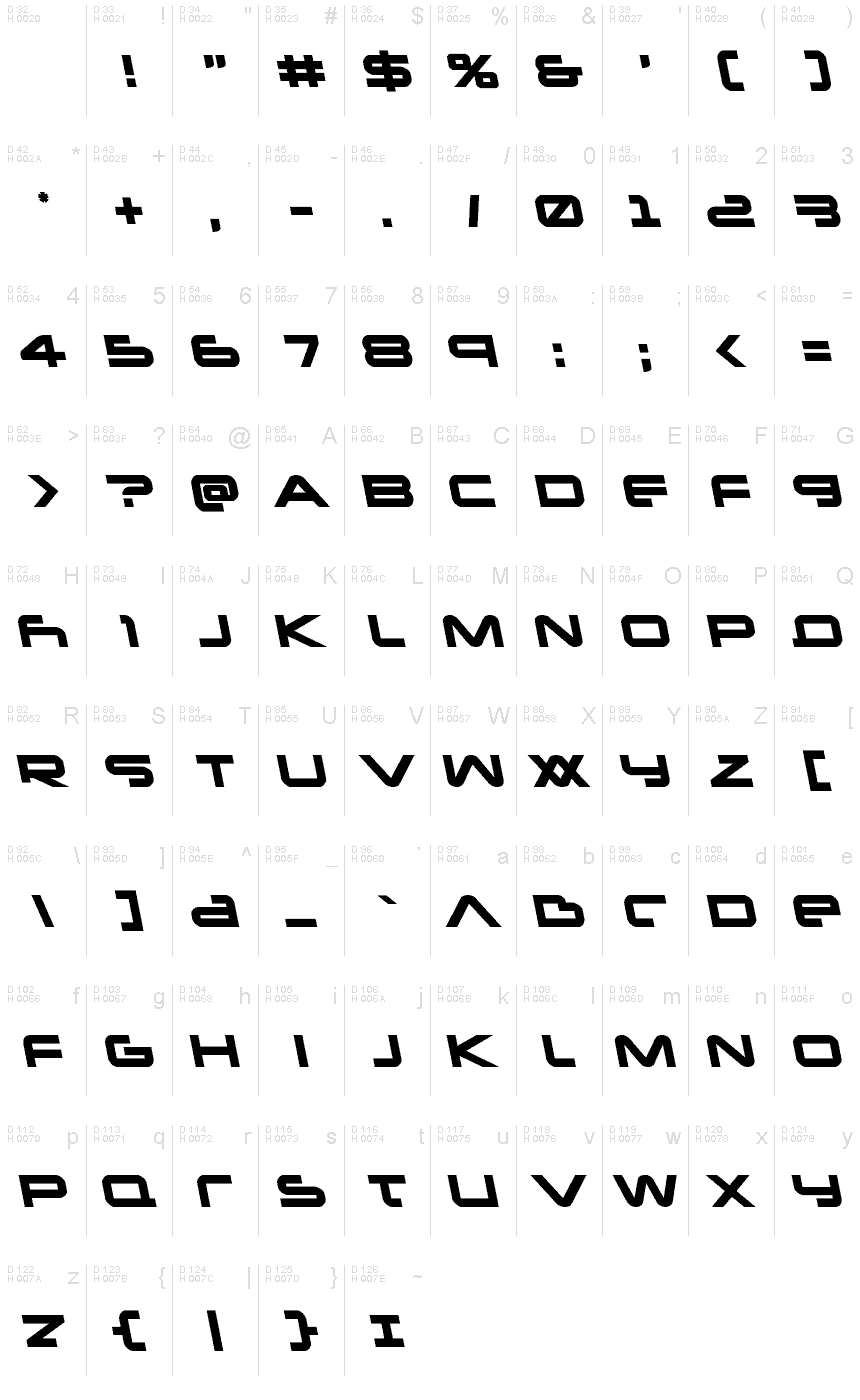
New Mars Semi-Leftalic font by Iconian Fonts is an expanded, bold display font with a futuristic influence. The characters have a distinctly angular and geometric shape communicating modernity and innovation. Visual elegance is achieved with the rounded corners of certain parts which adds to the technological feel. Your audience will get an immediate science fiction vibe upon reading through typography made using this free futuristic font.
Possible use cases include book covers, video game covers, movie posters, audiovisual logo openers, website headers or footers that need to stand out. Packaging designers can use this font for high-tech gadgets such as mobile phones and laptops where geometric style fonts are often used in branding strategies.
New Mars Semi-Leftalic